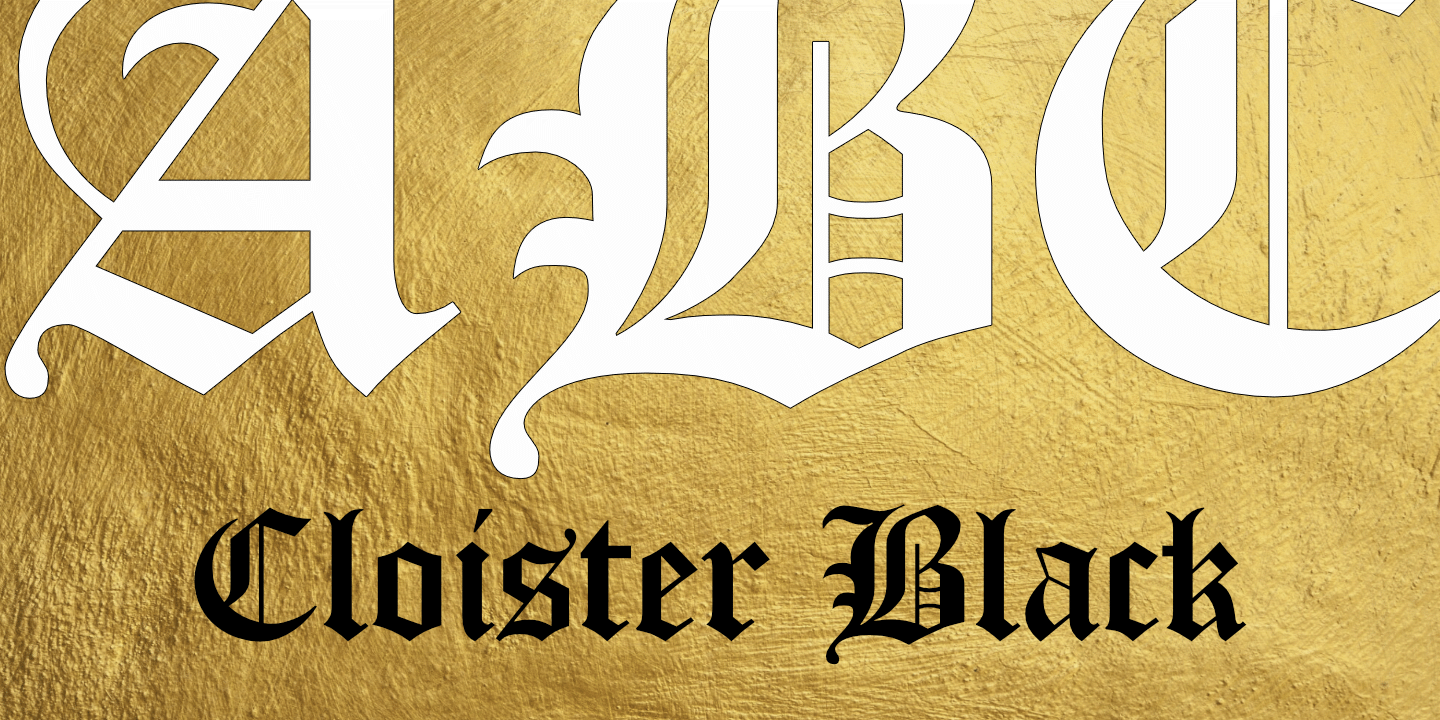
Cloister Black
A clean-cut blackface type, originally designed by the American type designer, Morris Fuller Benton, in 1904. See also Goudy Text CT. Click on the Glyph Chart link at right to view or print (or download) all glyphs for this font.